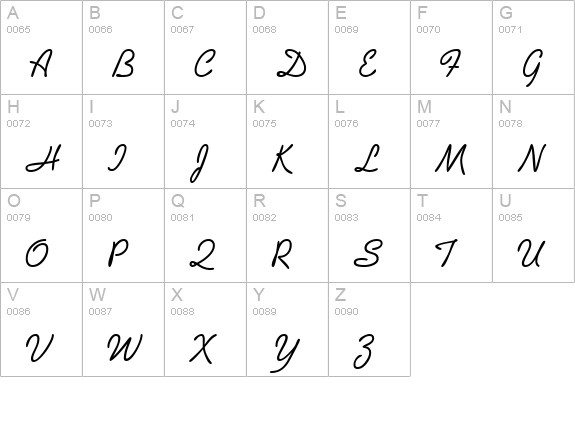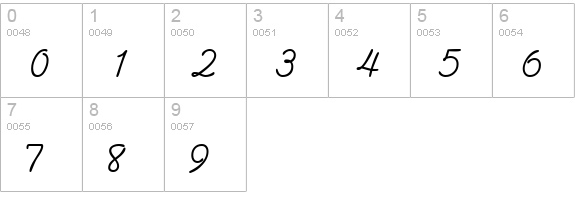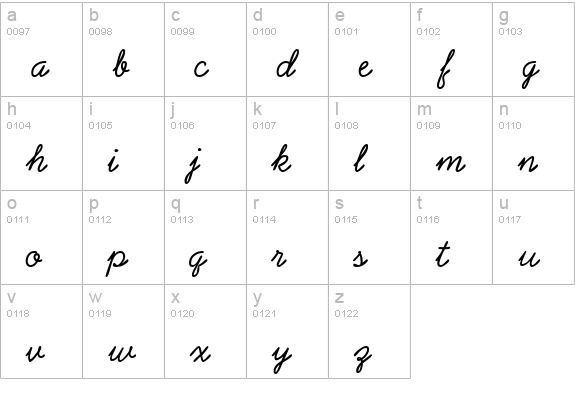
AbrazoScriptSSK Font Details
AbrazoScriptSSK is a beautifully designed font that exudes elegance and sophistication. With its flowing curves and stylish flourishes, this script font is perfect for adding a touch of luxury to your designs. Whether you're working on invitations, branding, or any other creative project, AbrazoScriptSSK will elevate your work to the next level. The best part? AbrazoScriptSSK is completely free to download at FontsMarket.com. So you can easily access this stunning font and use it in your projects without any cost. Don't miss out on the opportunity to enhance your designs with the timeless beauty of AbrazoScriptSSK. Download it today and start creating stunning visuals that will leave a lasting impression.